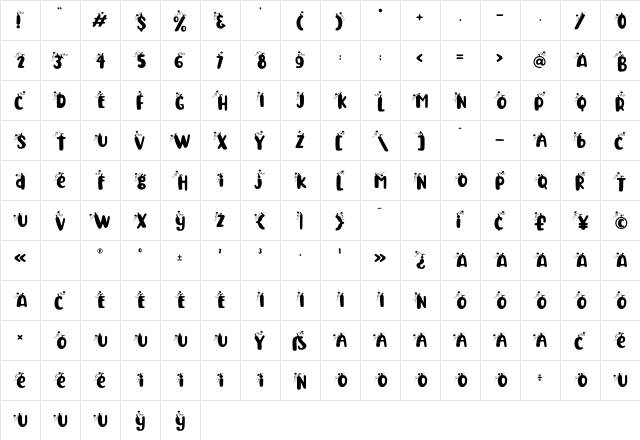
Thanksgiving Joy Pumpkin Free Font
Thanksgiving Joy Pumpkin
Foundry: Putracetol Studio, Karanganyar.
Designer: Putra Novembria Candra Kusuma
Design Context for Thanksgiving Joy
Thanksgiving Joy is a composed and adaptable typeface that performs quietly and consistently across a wide range of design contexts.